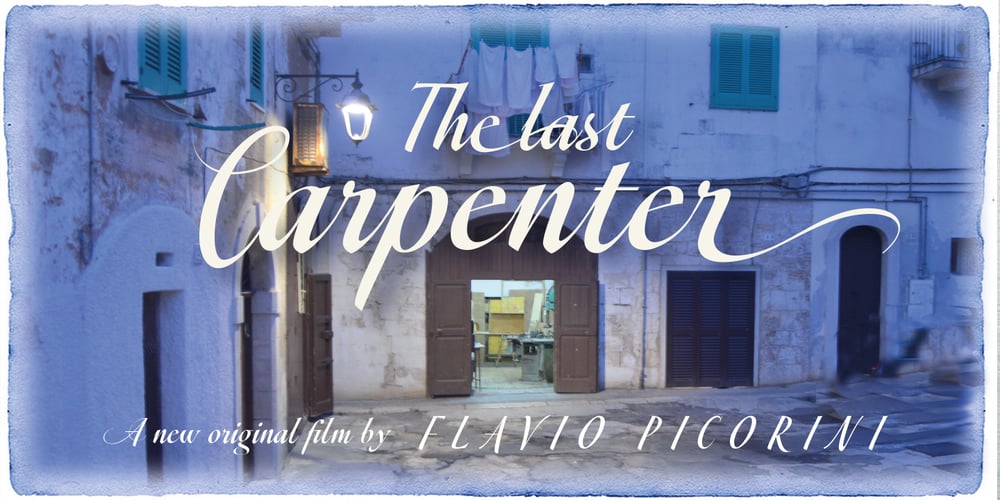
Sgraffio Font Family was designed by Olcar Alcaide and published by Eurotypo. Sgraffio contains 1 styles and family package options. Sgraffio is a classic script font with an elegant contemporary style. Inspired by the CopperPlate script, it is an updated viewpoint. The special characteristics of this typeface is that its strokes are agile and dynamic, with slight and smooth variations in thickness, giving to the final art a sophisticated atmosphere. It is attractive and readable. It can be used in decorative titles, as well as in large readable text. Contain a useful set of OpenType features that can help you in many typographic fine adjustments, you can choose from different alternates, swashes, discretionary and standard ligatures. This fonts is completed with Old Style figures and Central European languages. It is ideal for fashion magazines, advertising, business web, logotypes, lettering – logotypes, e-commerce brands, books, greeting / wedding cards, packaging, labels or any type of effective visual communication purpose.